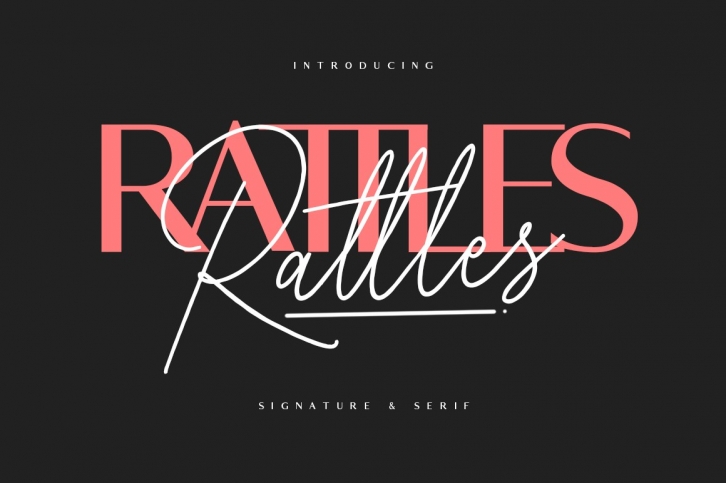
Rattles Signature plus Serif is a great font that was designed by Maulana Creative. Imagine the amount of combinations you can create using this font! The archive is 19.91 MB and it was released on June 29, 2018. Rattles Signature plus Serif looks beautiful on wedding invitations, greeting cards, logos, posters, labels, t-shirt designs, logos, business cards and is perfect for use in ink or watercolor works, fashion, magazines, packaging and food menus, children's books and more!